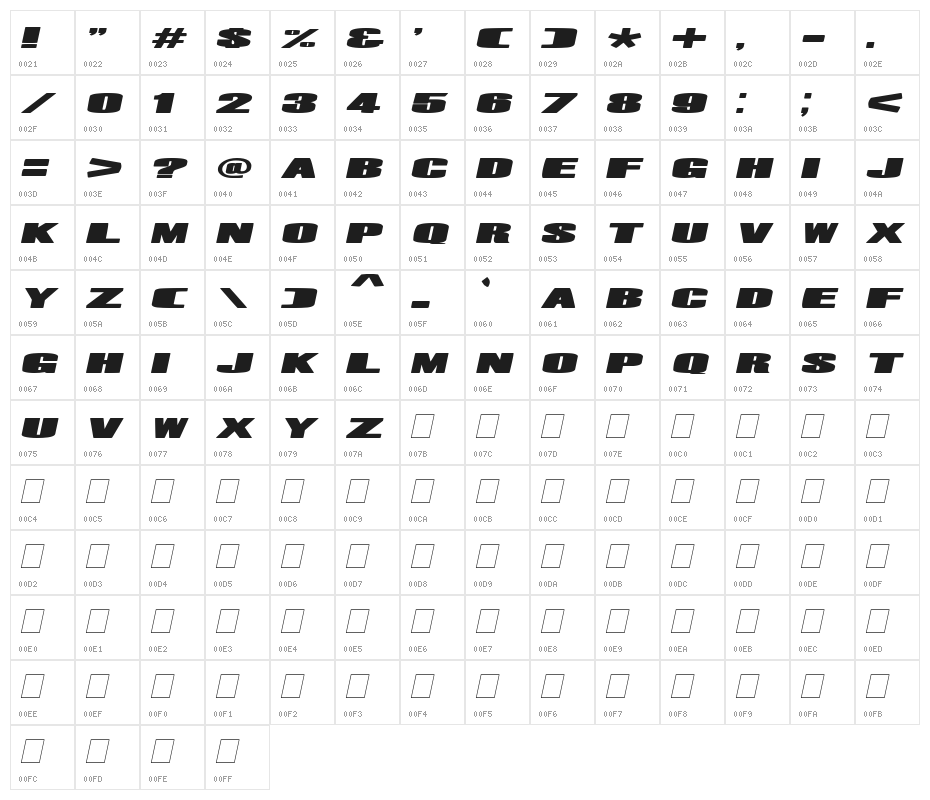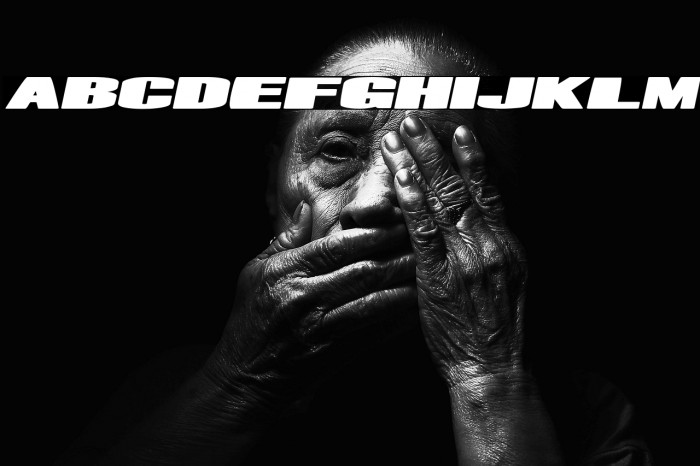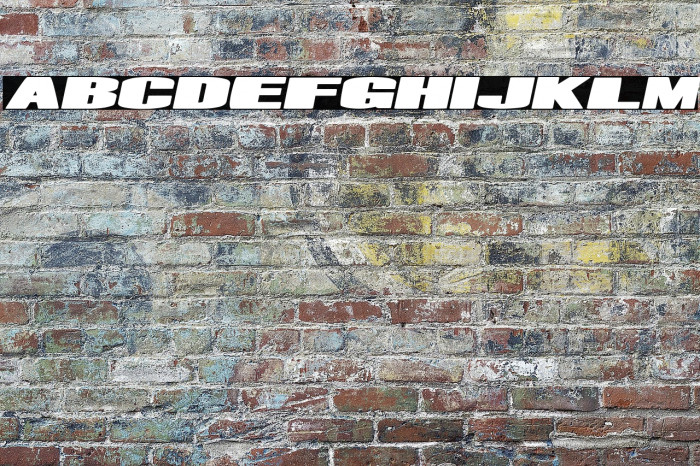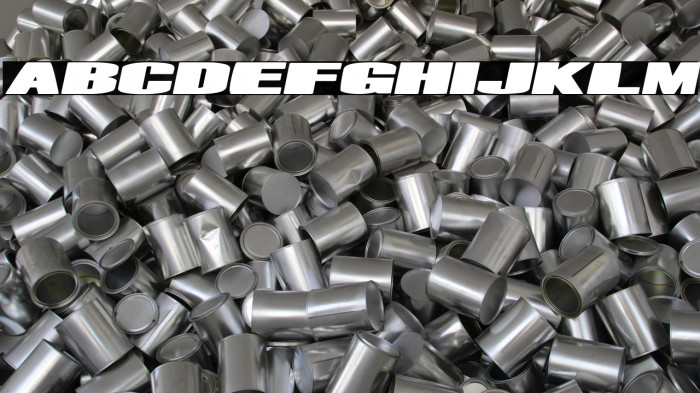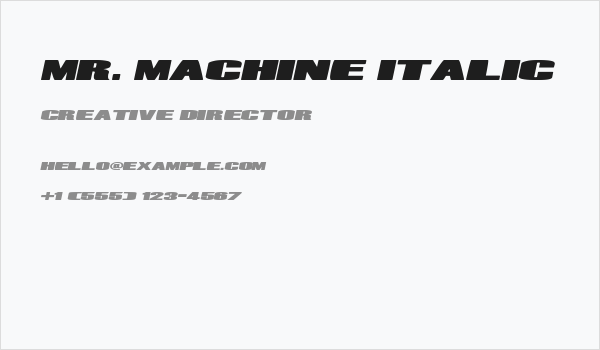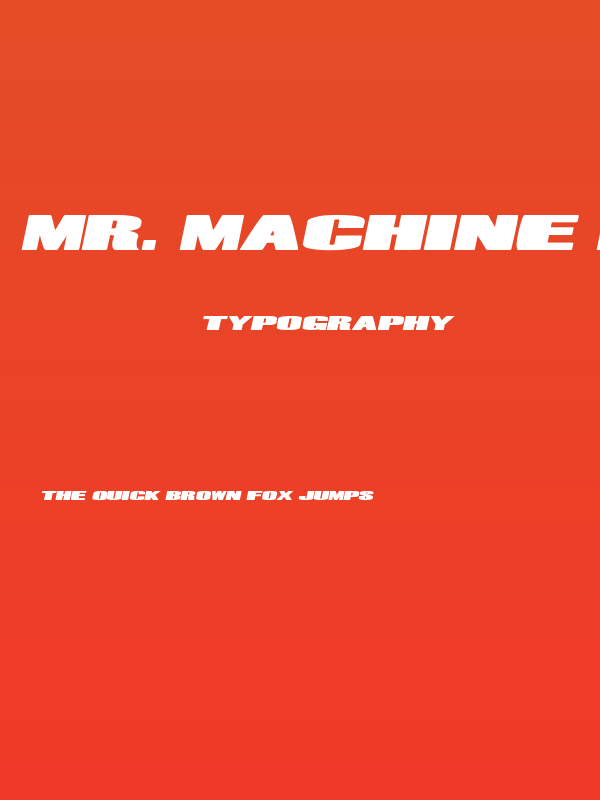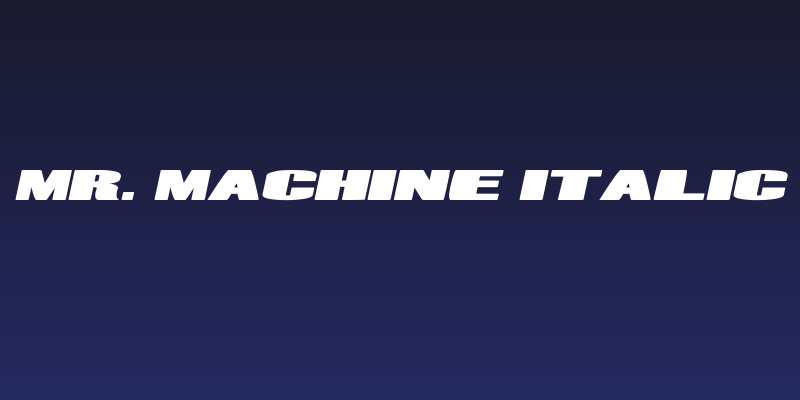
Mr. Machine Italic Font
Mr. Machine Italic Description
This bold and dynamic font features a strong italic slant, giving it a sense of motion and energy. The characters are wide and robust, with a distinct geometric style that emphasizes their boldness. The uppercase letters are particularly striking, with a uniform thickness that adds to the font's powerful presence. The numbers and special characters maintain this bold aesthetic, ensuring consistency across all elements. This font's design is ideal for making a statement, with its high contrast and solid form making it stand out in any context.